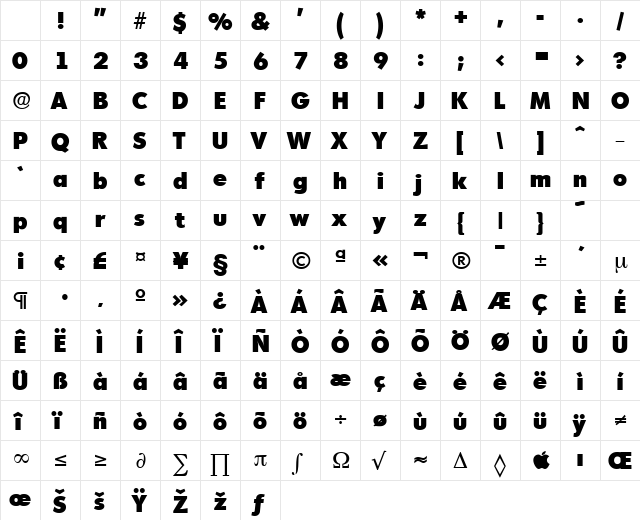
Montreal-Serial-Heavy Regular
Design Context for Montreal-Serial-Heavy
Montreal-Serial-Heavy is a composed and adaptable typeface that performs quietly and consistently across a wide range of design contexts.
Pro Tip: Use Montreal-Serial-Heavy in both headline and body roles to test its range before committing to a single application.